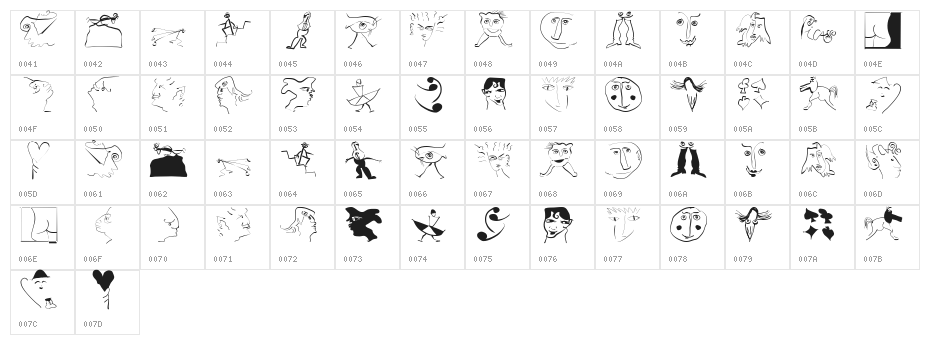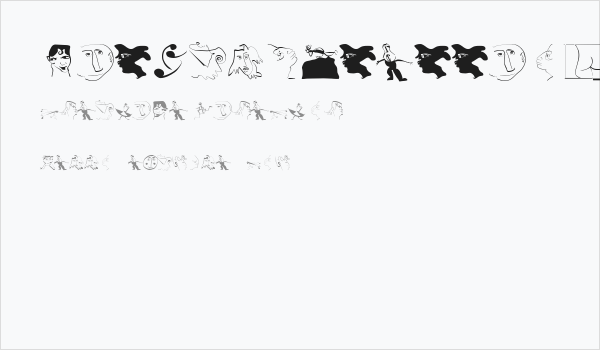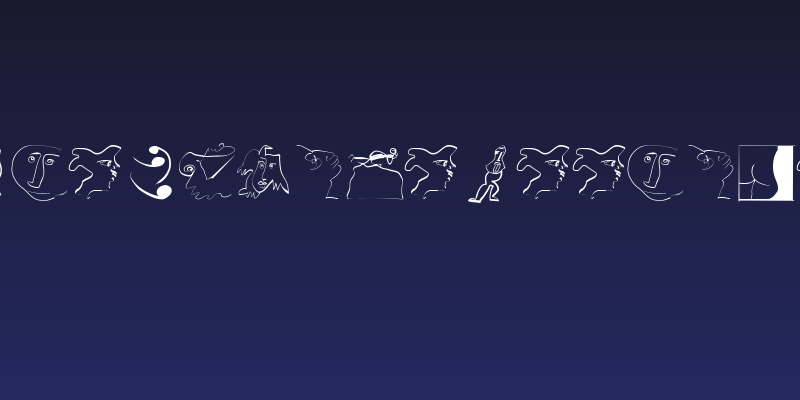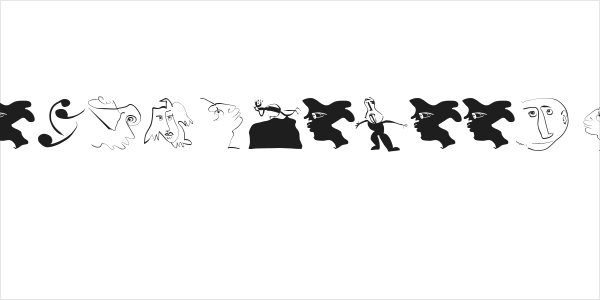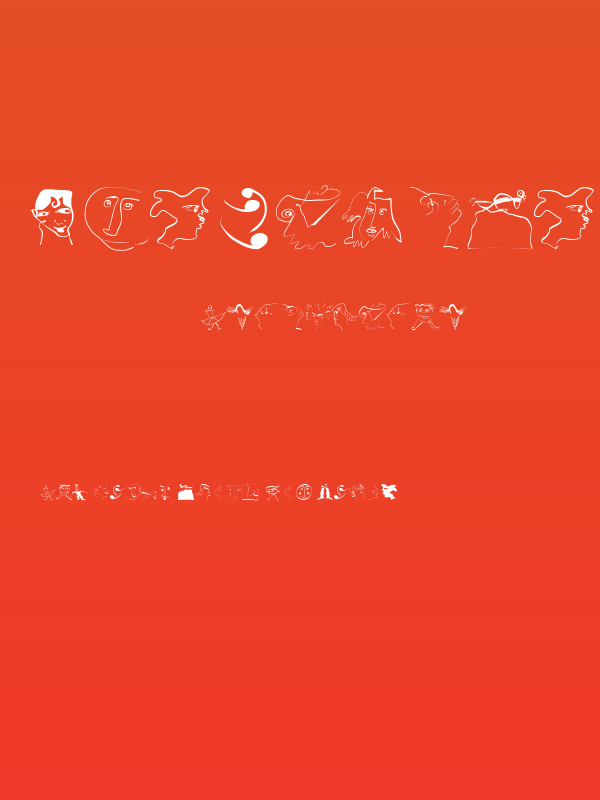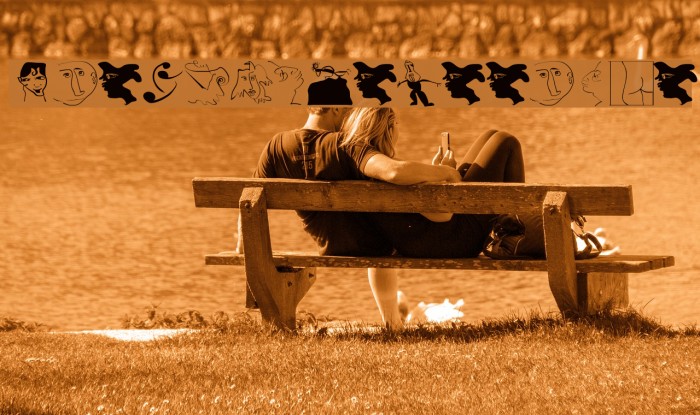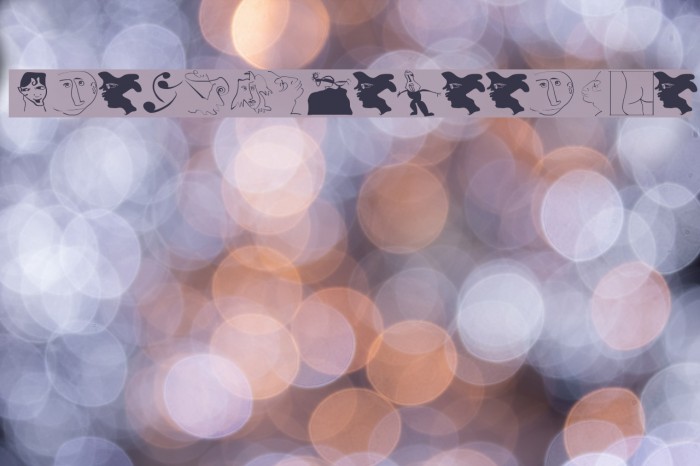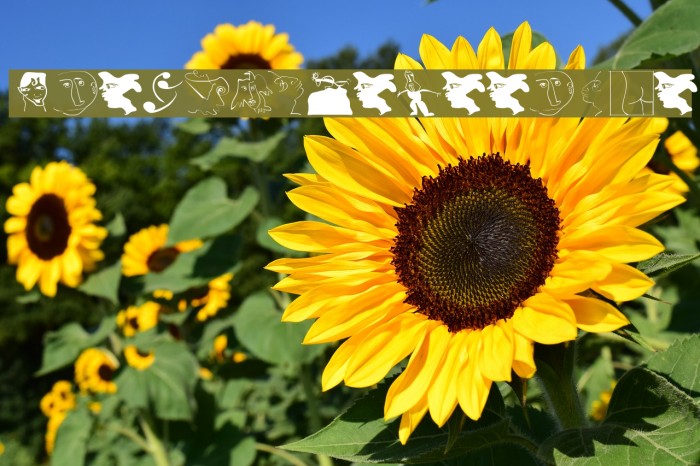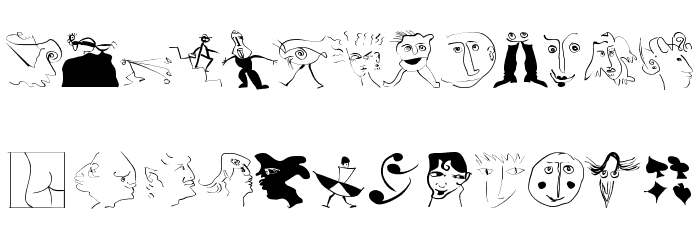
VisualObsessions Font
VisualObsessions Description
This font is a highly creative and artistic collection of abstract and illustrative characters. Each letter and symbol is represented by a unique drawing that resembles a whimsical, surreal sketch. The characters are composed of fluid lines and imaginative forms, often depicting faces, figures, and abstract shapes. The style is reminiscent of modern art, with a playful and expressive quality that captures attention. The font does not adhere to traditional typography rules, making it more of an art piece than a functional typeface. It is ideal for projects that require a bold artistic statement.
| Overall Style | Artistic, Surreal, Whimsical |
| Use Case | Art projects, Creative branding, Posters |
| Proposed Projects | Ideal for art projects, creative branding, unique posters, and any design requiring a bold artistic statement. |